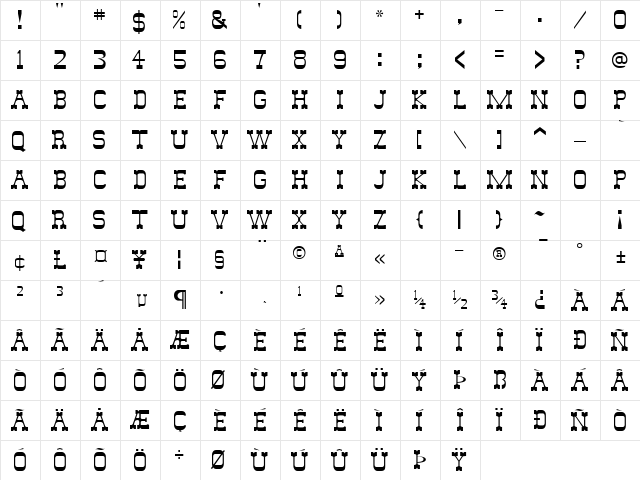
GE Old West Regular
Design Context for GE Old West Typeface
GE Old West is a composed and adaptable typeface that performs quietly and consistently across a wide range of design contexts.